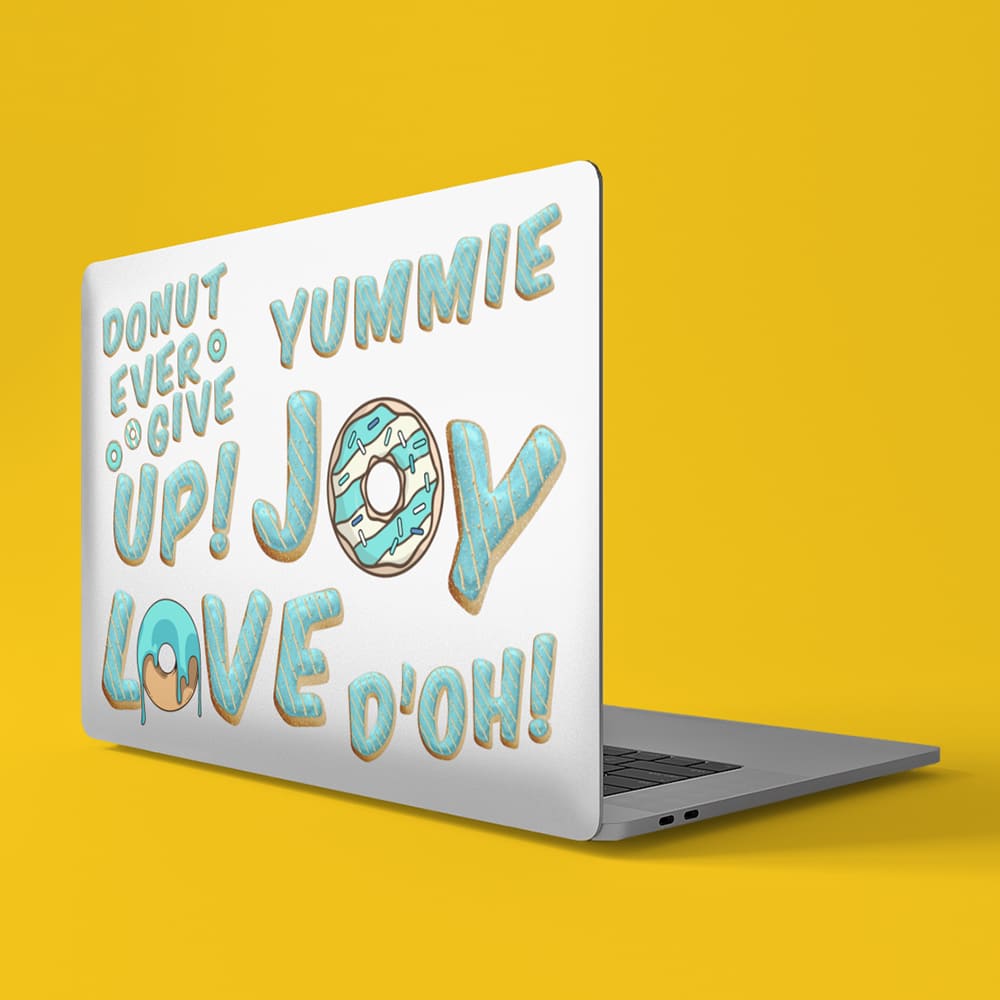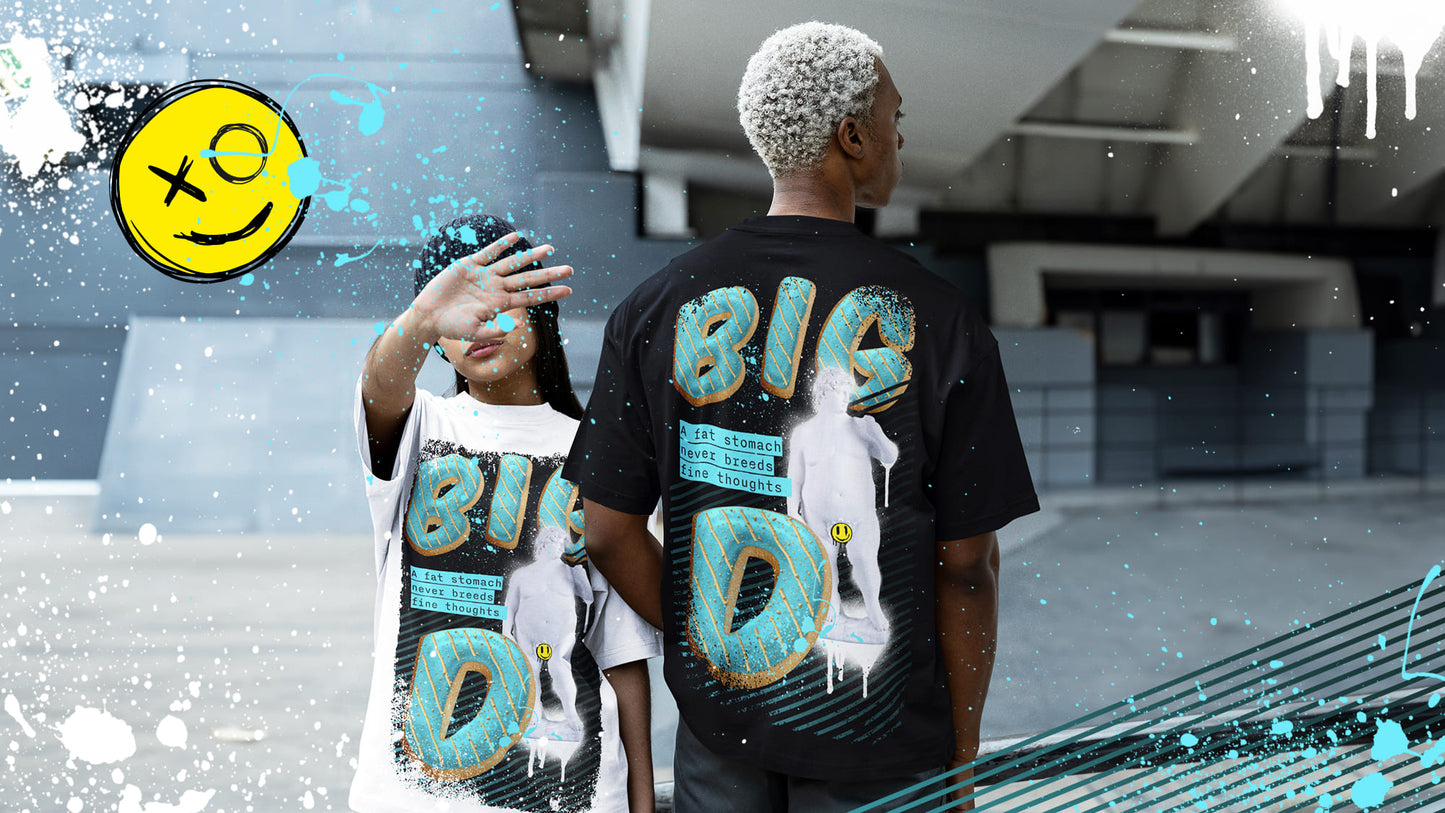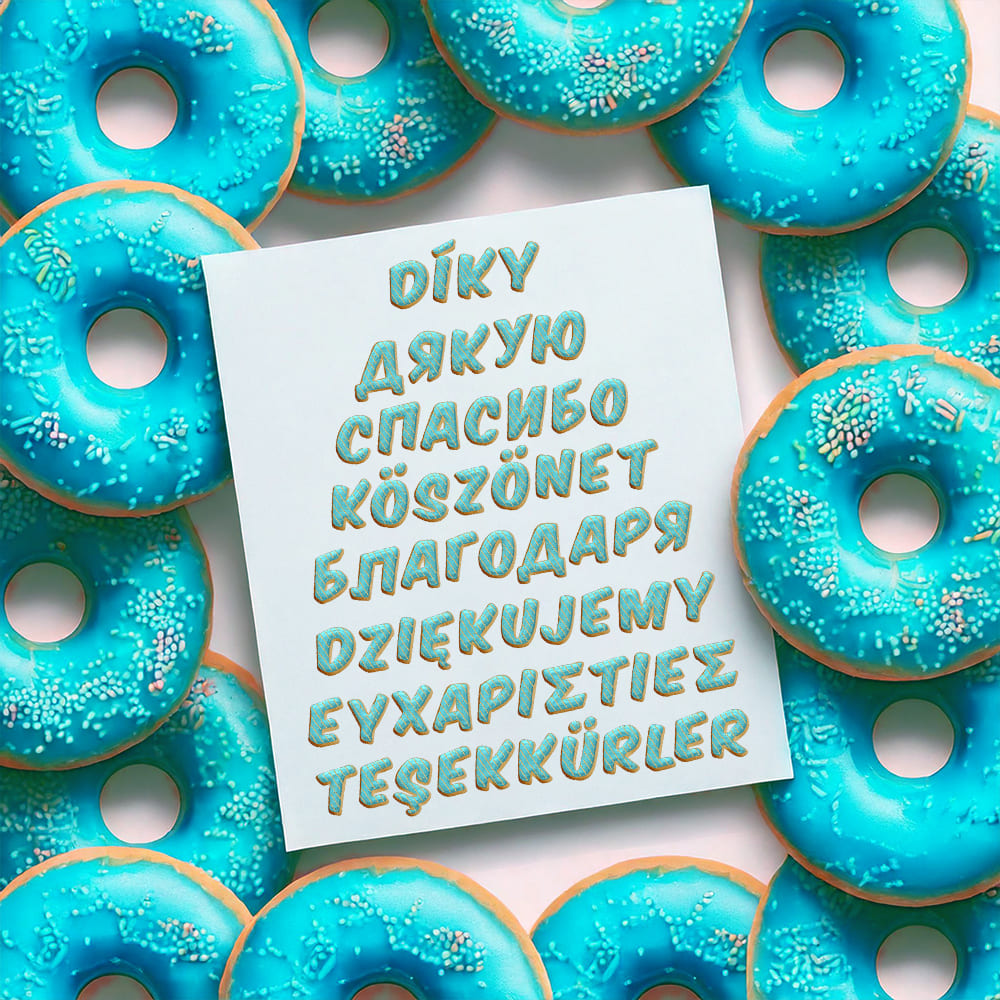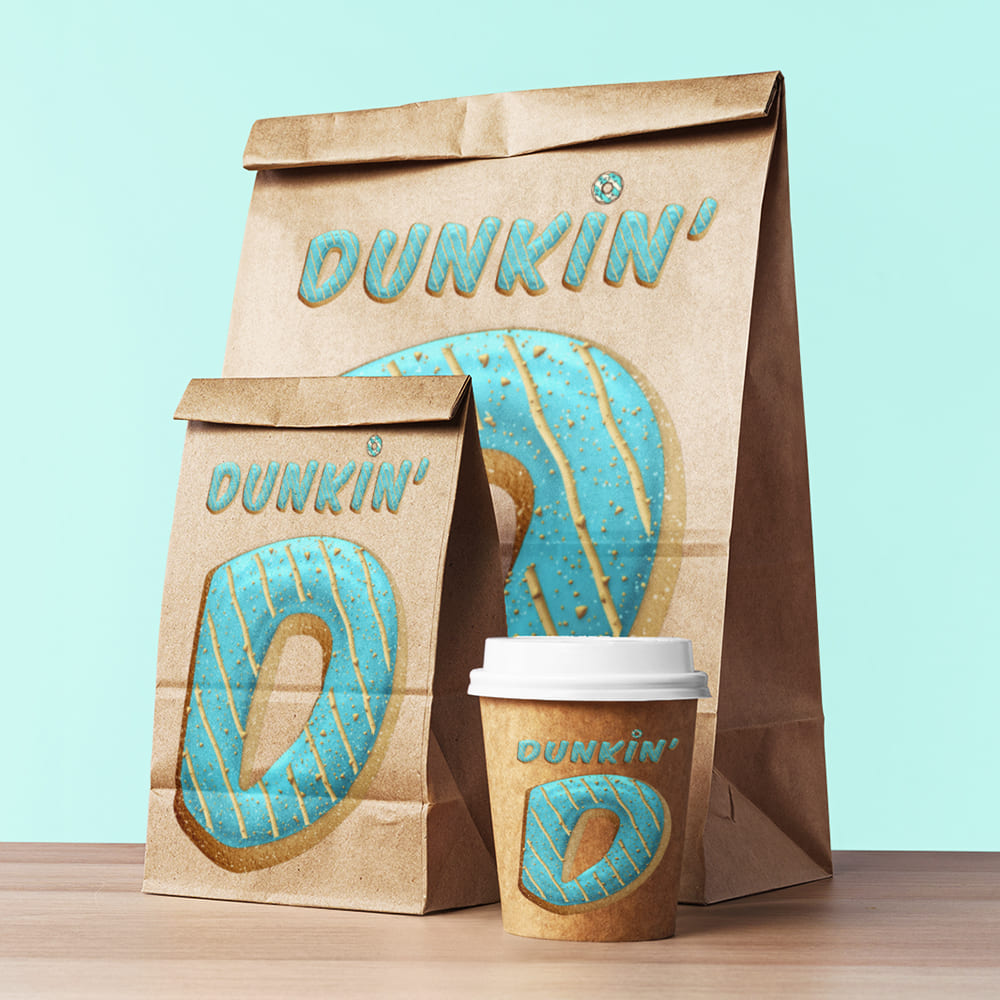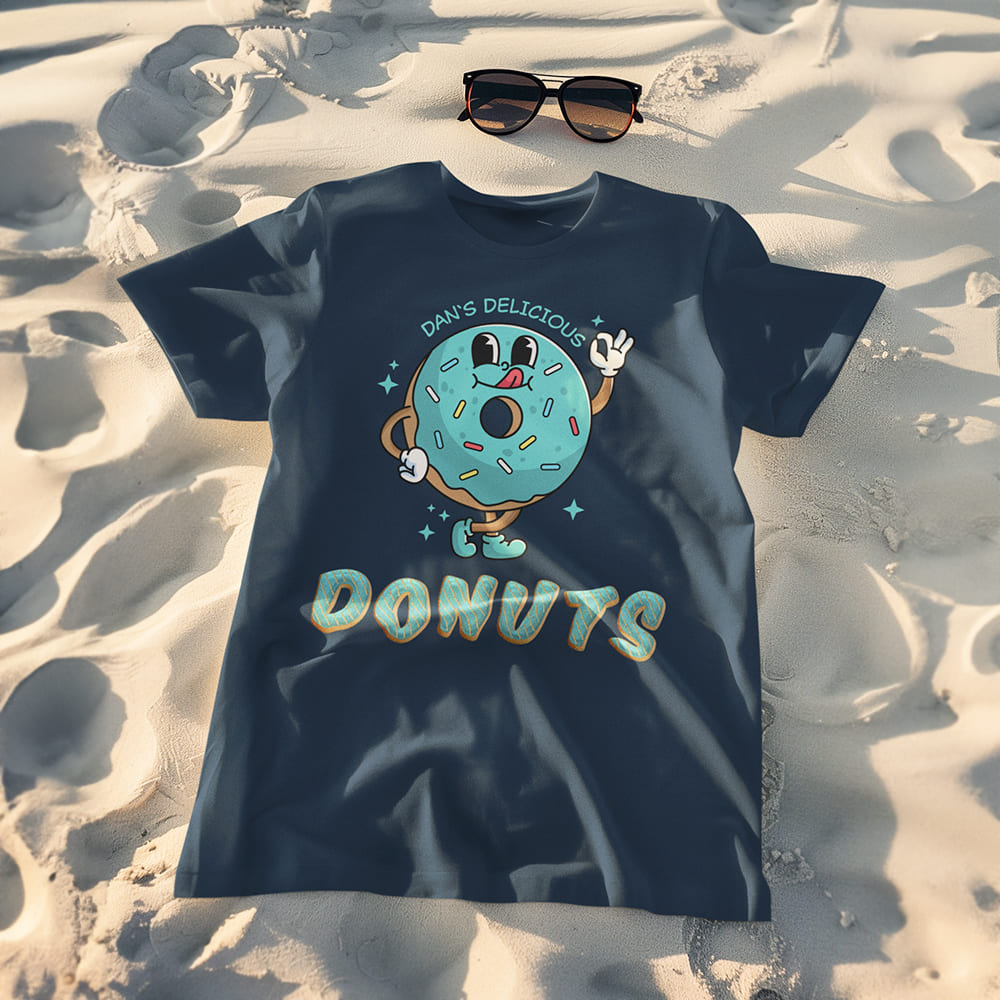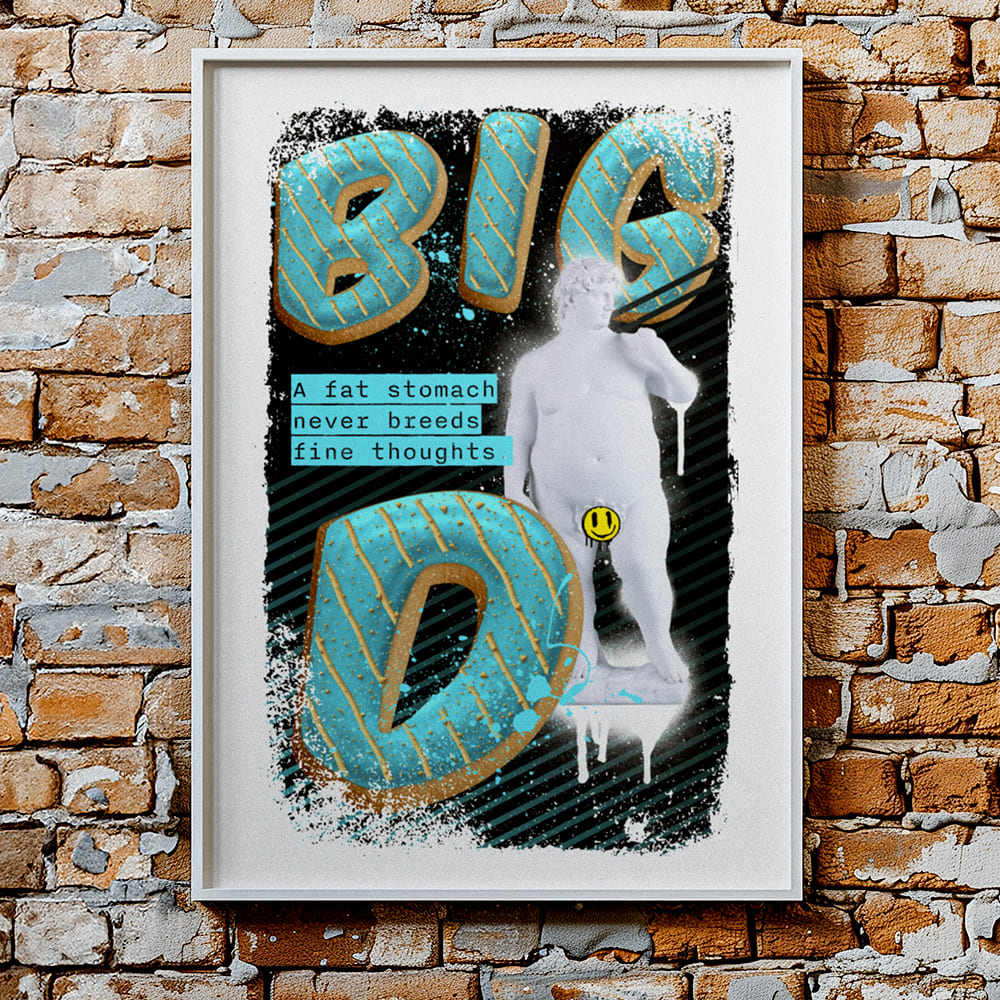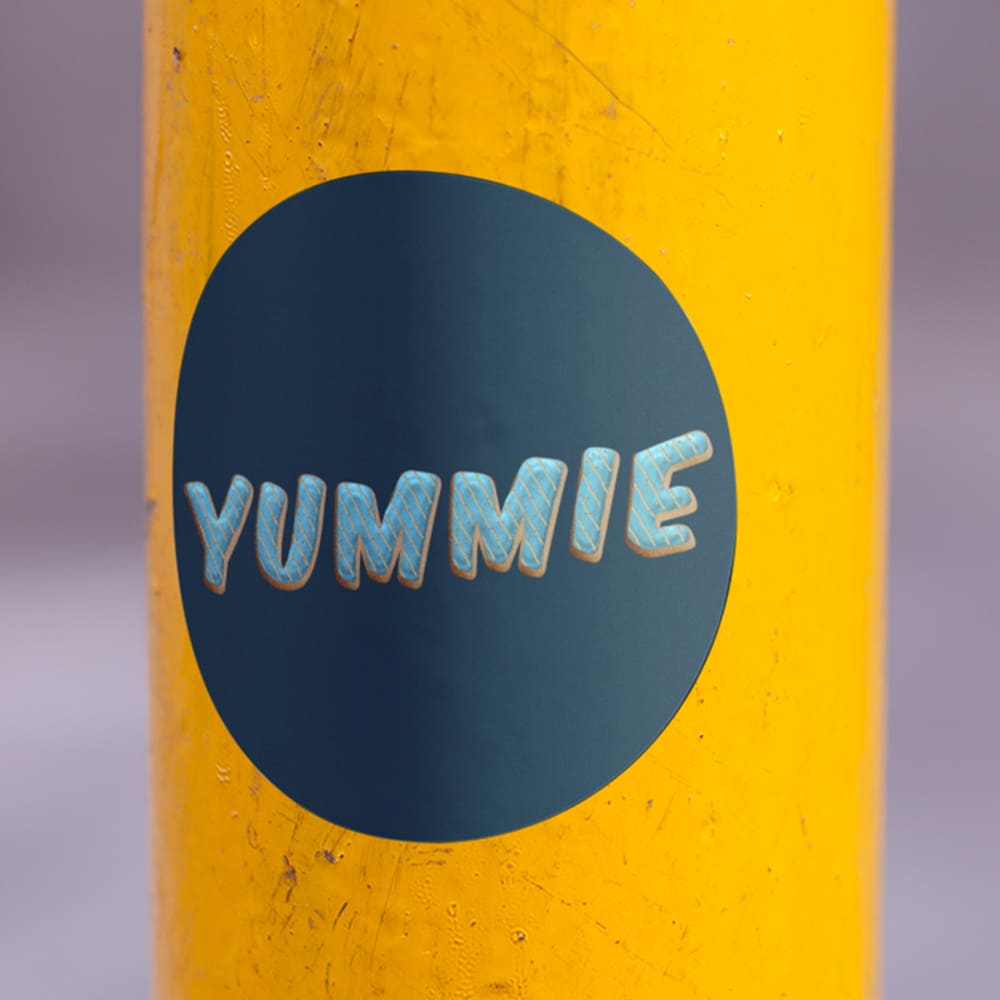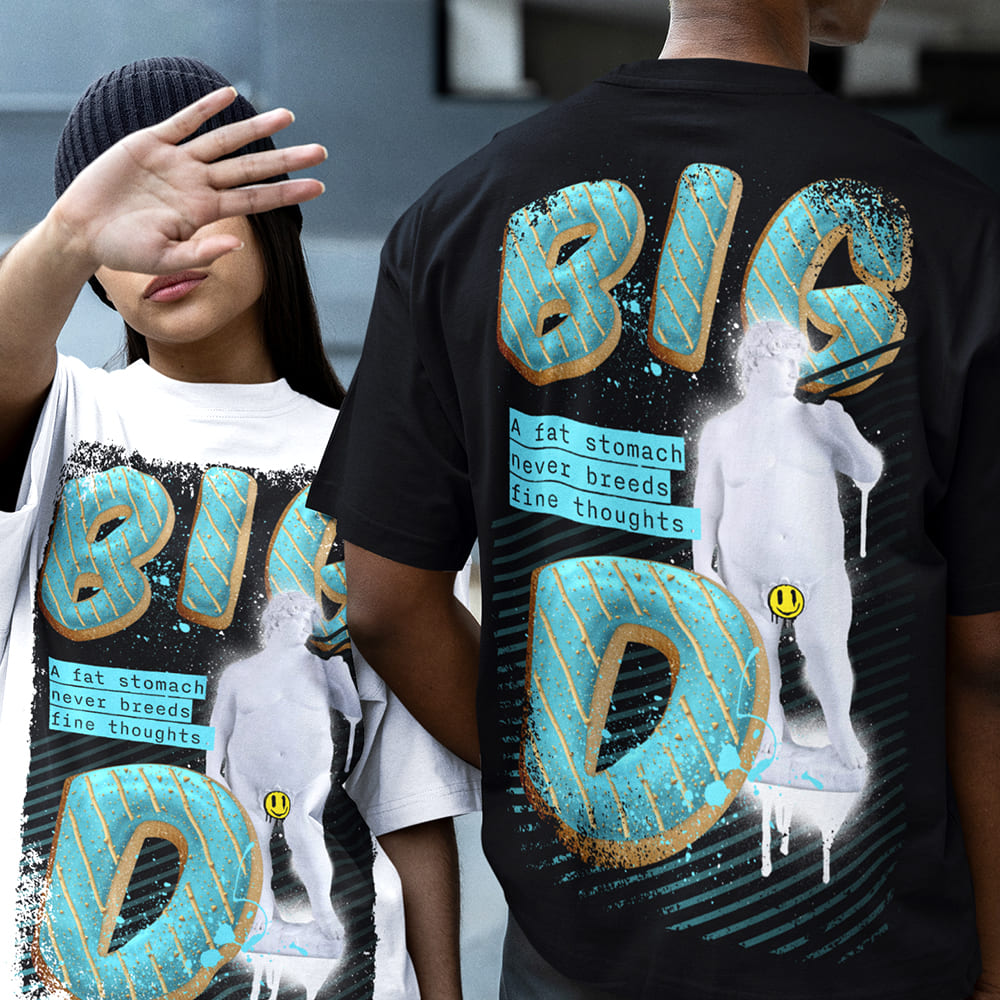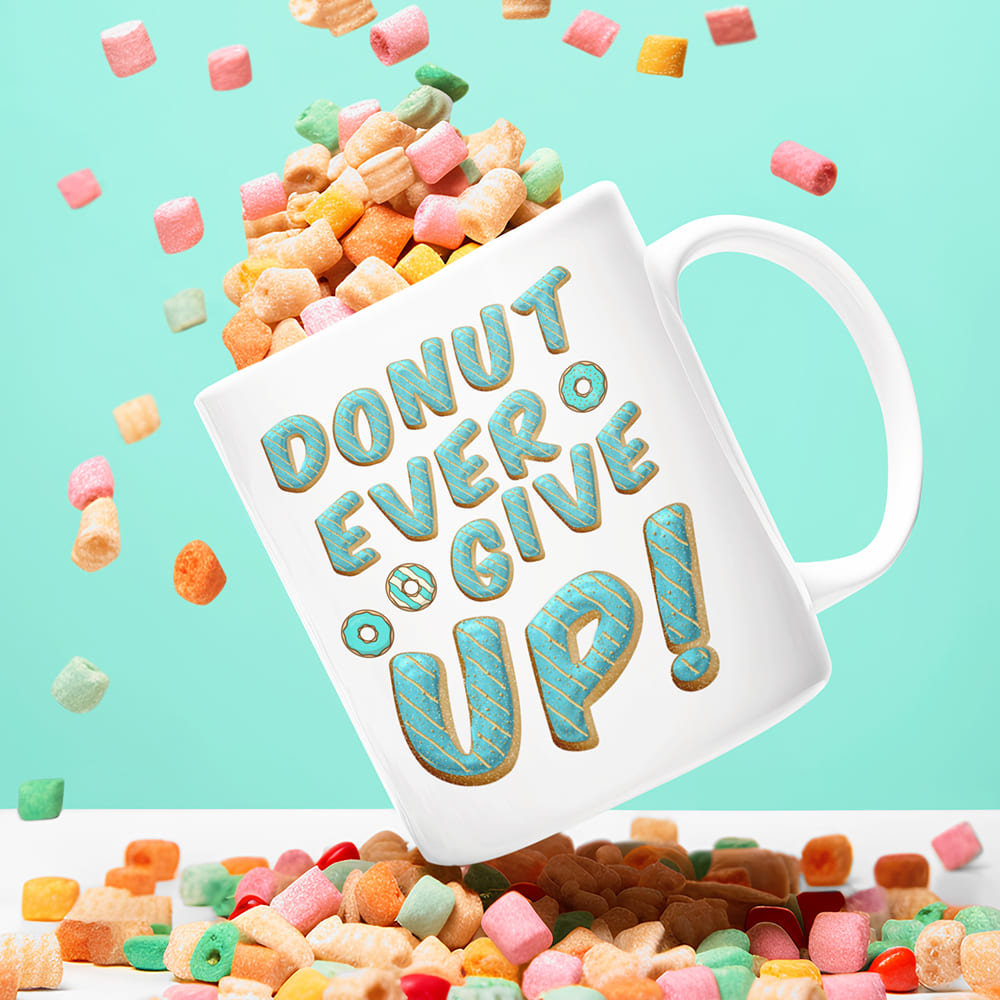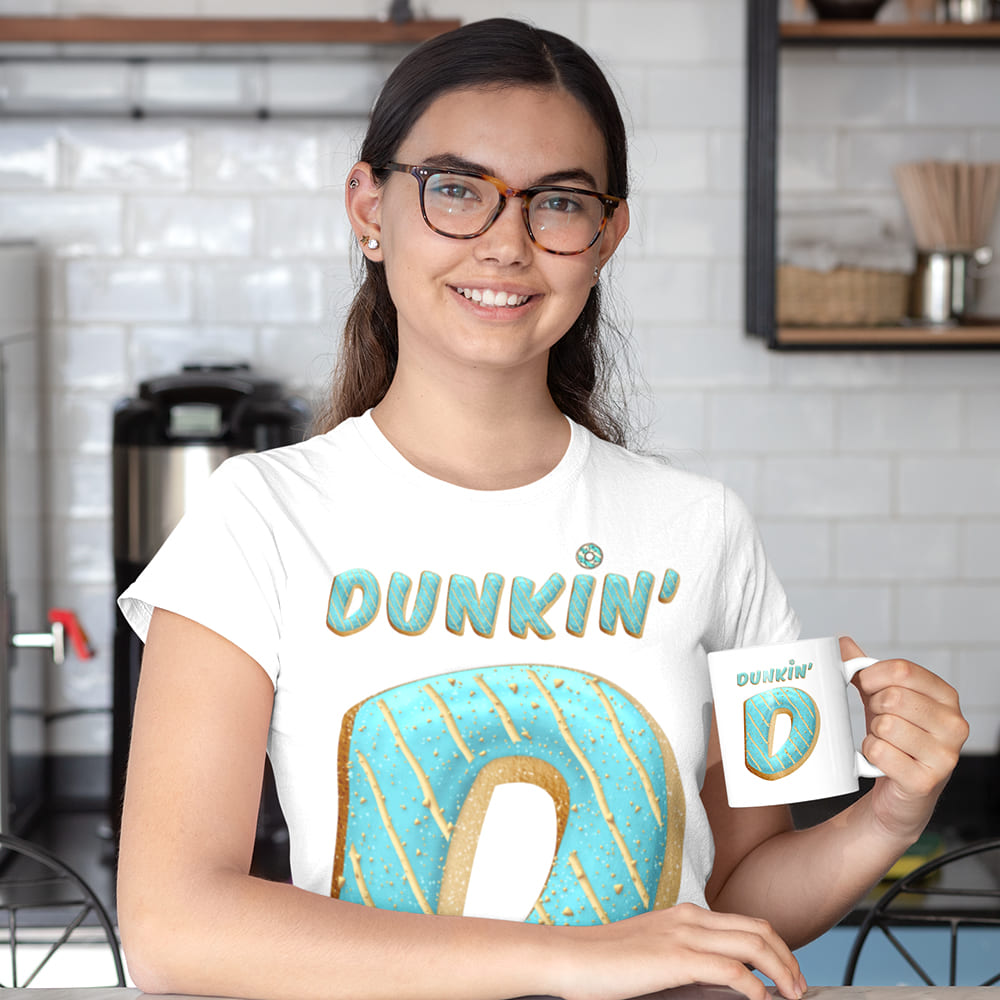
Blue Donuts Font
Sweet, Playful, Irresistible π©π§π
Sometimes a design just needs to feel playful and inviting β like a freshly baked donut with a blue glaze. The Blue Donuts Font brings that sweet, joyful vibe into your design, making every project feel instantly irresistible.
Why Choose the Blue Donuts Font
πΉ Playful and inviting β The Blue Donuts Font radiates joy and lightness, perfect for designs that capture the playful, vibrant vibe of a coffee break or birthday celebration.
πΉ Irresistible look β With its voluminous letters and sweet color scheme, the Blue Donuts Font grabs all the attention. Perfect for events, bakeries, or childrenβs designs that need a joyful and welcoming vibe.
πΉ Ideal for branding and promotions β Whether for social media posts, flyers, or advertising, the Blue Donuts Font brings fun and color into any design, making it instantly memorable.
Make a Statement with Blue Donuts Font
Give your branding and design a joyful and inviting look with the Blue Donuts Font. This typeface is the perfect choice for brands and projects that want to radiate fun and happiness.
πΉ Make your design unforgettable β Let the sweetness and playfulness of the Blue Donuts Font shine through your project.
πΉ Choose sweet. Choose vibrant. Choose Blue Donuts Font.